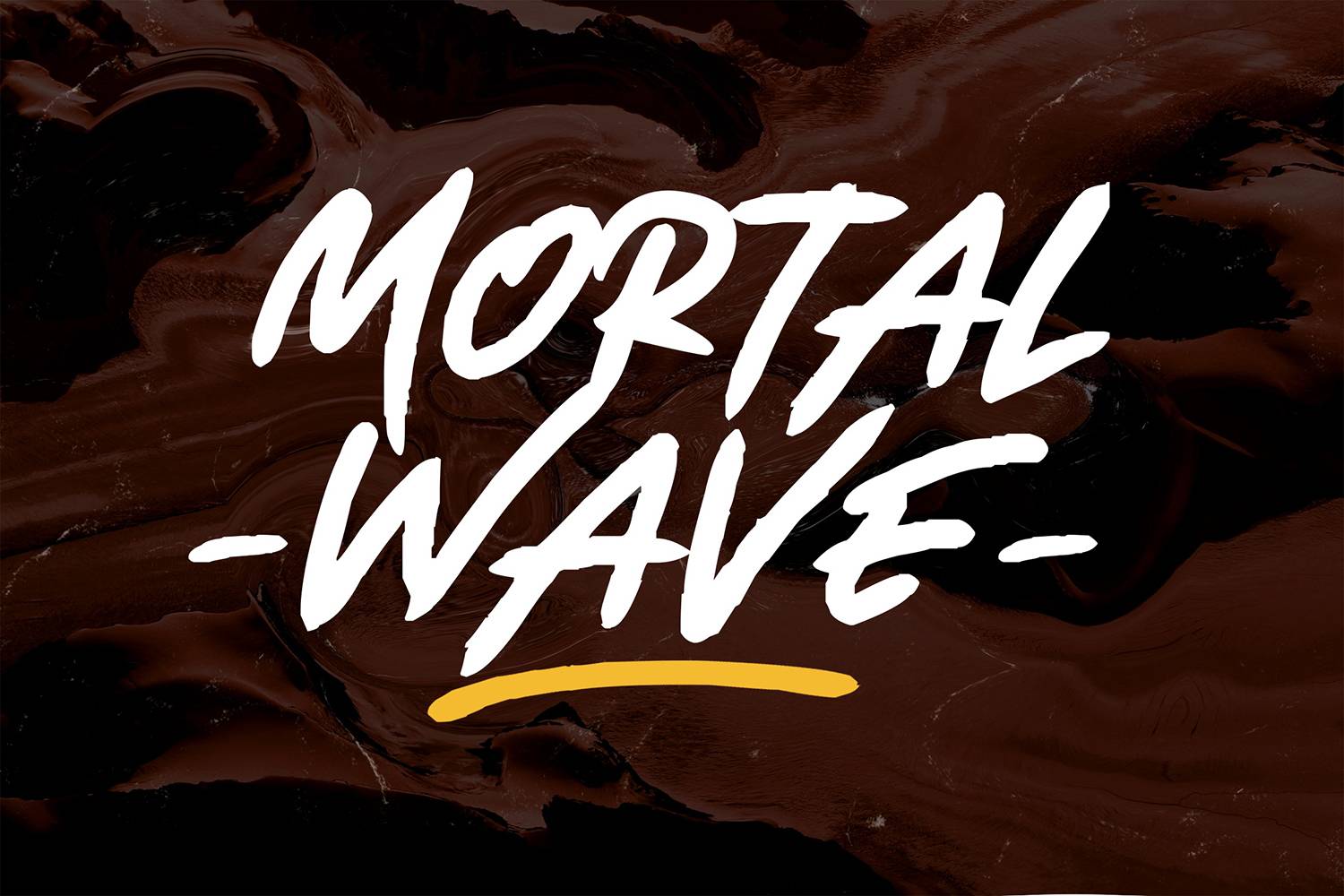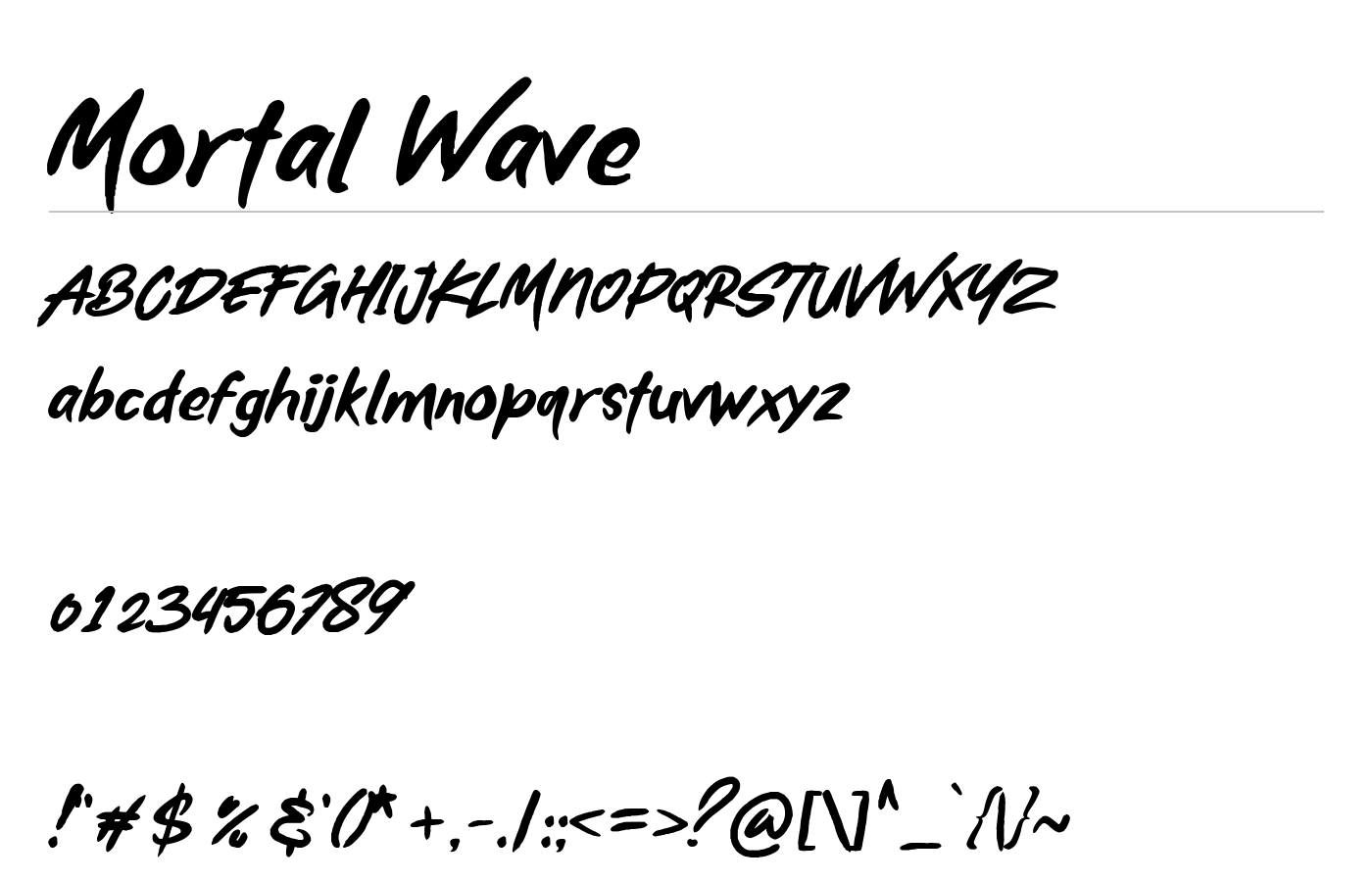
Mortal Wave is a bold, energetic script font with a hand-brushed style that feels lively and casual yet strong. Its dynamic strokes and slightly irregular shapes give it an authentic, artistic vibe, making it perfect for creative branding, posters, and headlines where a personal, expressive touch is desired. This font works well in designs seeking a modern, approachable, and confident personality.
| Font family | Mortal Wave Font |
| Designer | StringLabs |